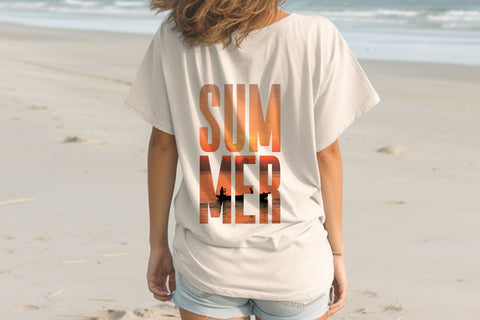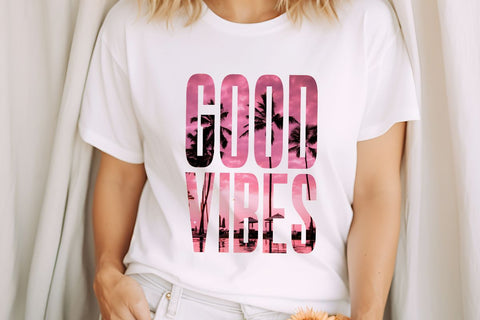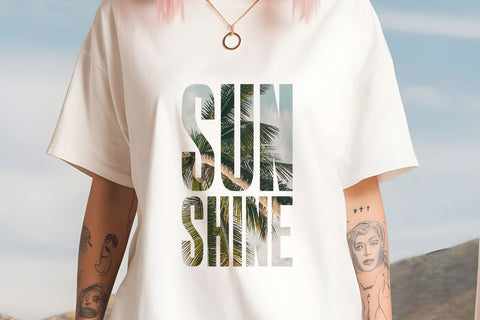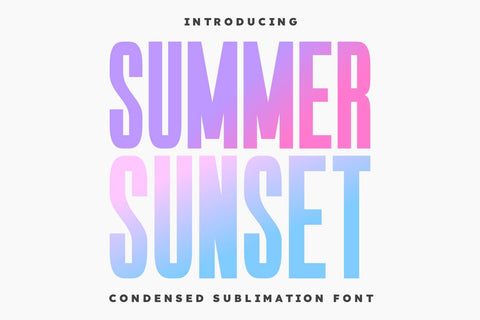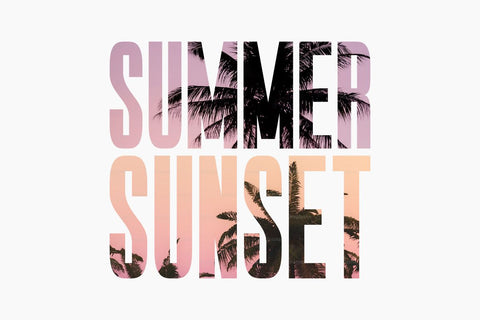
Summer Sunset - Sublimation Font
Summer Sunset is a vibrant and modern condensed sans serif font that's specifically designed to make your sublimation projects and crafts truly pop. Its sleek, tall, and bold letterforms create a striking and contemporary aesthetic, ensuring excellent readability even when scaled. What sets Summer Sunset apart is its versatility, making it perfect for embodying a wide range of styles from chic and elegant to bold and impactful. This font is perfectly suited for adding a touch of modern sophistication and clear messaging to a vast array of creative endeavors. Imagine Summer Sunset gracing eye-catching sublimated apparel like t-shirts and tumblers, creating crisp labels, impactful posters, precise signage, and a plethora of other unique crafts. Its optimized design makes it exceptionally well-suited for products targeting end-users who enjoy crafting with Cricut for clean cuts, sublimation for vibrant and lasting designs, laser cutting for intricate details, and for producing appealing stickers and POD (Print on Demand) friendly merchandise. Summer Sunset's contemporary appeal and strong visual presence will ensure your creations stand out, offering a blend of modern clarity and stylish versatility for any project demanding a polished and impactful look.